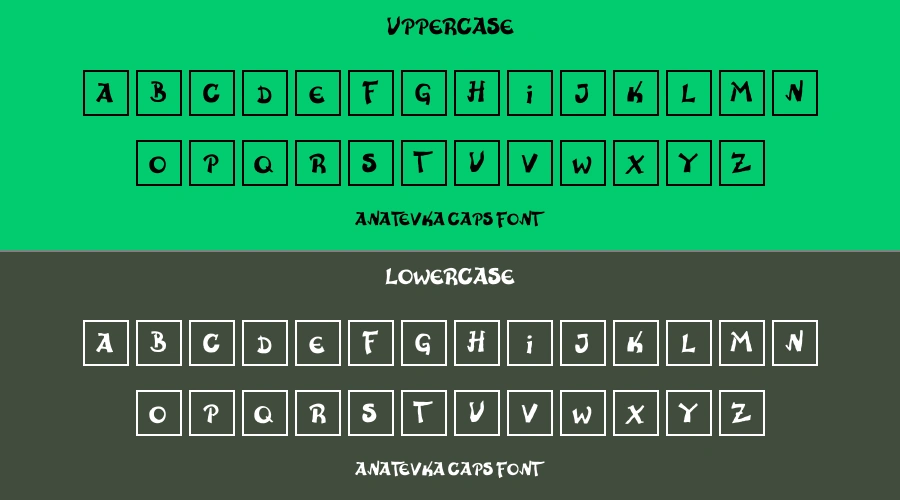
About Anatevka Caps Font
When typographic excellence matters most, Anatevka Caps Font delivers through its thoughtful blend of graceful curves and technical precision. Specially crafted for merchandise graphics, it offers the originality and technical sophistication required for sophisticated design work. Every detail serves a purpose.
The character set showcases thoughtful details like sharp edges alongside functional language support. This proves especially valuable in campaign headers, where special effects directly influences results. Particular attention was paid to terminal style and industrial acceptance during development.